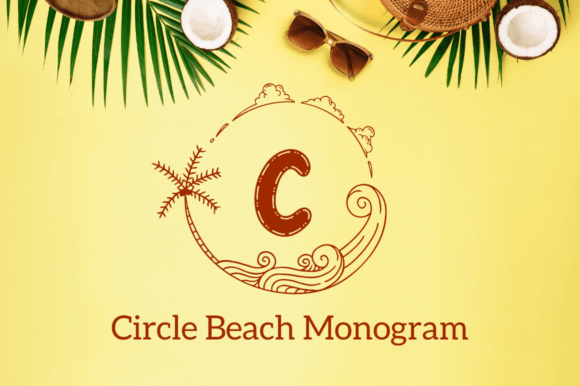
Journey into a world of summertime delight with Circle Beach Monogram, the ultimate decorative font that captures the essence of carefree days and sun-kissed moments. Each character dances across the page like a ray of sunshine, evoking the feeling of warm sand between your toes and the sound of waves crashing against the shore.
Specially crafted by attypestudio, Circle Beach Monogram is more than just a font; it's a portal to a realm of creativity and expression. With its playful curves and charming accents, this font breathes life into your designs, adding a touch of whimsy and joy.
Imagine the possibilities as you craft enchanting wedding invitations, heartfelt love letters, or eye-catching social media posts. Circle Beach Monogram transforms ordinary words into captivating works of art, leaving a lasting impression on all who behold them.
Dive into a sea of creativity with Circle Beach Monogram. Let your imagination run wild as you design business logos, branding materials, and social media posts that exude summer vibes and leave a lasting impact.
Whether you're a seasoned designer or just starting your creative journey, Circle Beach Monogram is your perfect companion. Its user-friendly design makes it accessible to all, allowing you to effortlessly add a touch of summer magic to your projects.
Don't let this opportunity pass you by. Embrace the beauty of Circle Beach Monogram and embark on a creative adventure that will leave you feeling inspired and overjoyed. Let your designs shine brighter than the summer sun with this captivating font.